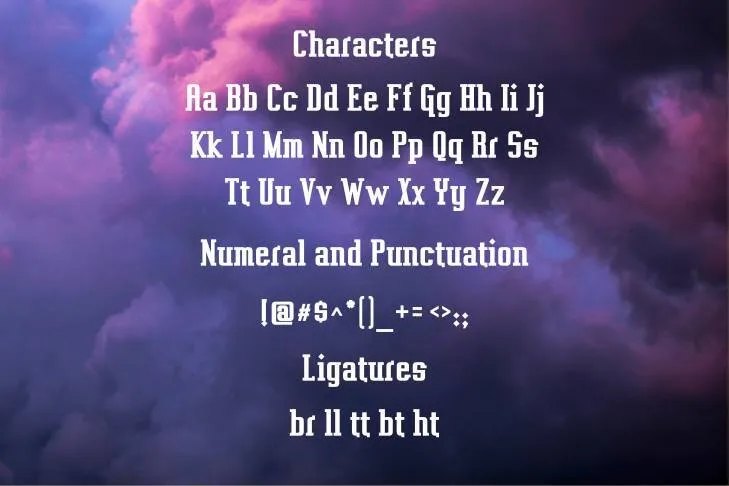
Vahika Font is a stunning serif font with a unique look and decorative embellishments. It frequently appears in a range of settings, such as advertisements, book covers, posters, and websites. It’s crucial to take into account the text size you’re working with when using this stunning typeface in a document or design project.
The typeface works well for larger texts with more space between words, like headings or display text. To increase readability and legibility when using it for longer passages of text, think about matching it with a more straightforward typeface.
This stylish font works well with bold, italic, and underline styles to highlight particular words or phrases when it comes to editing and design. Overall, it gives an awe-inspiring look to your projects and pleases the users as well.
Using Vahika Font
To produce a coherent and visually acceptable design, it is frequently utilized in combination with other decorative components, such as elegant images, lines, or ornaments.
Vahika is a well-liked font for use in advertising campaigns, especially for goods or services that appeal to sophisticated or high-end consumers because of its elegant and artistic appearance. This typeface style gets a new shape after making a pair with silicia script font.
Additionally, because of the elaborate and decorative design of this exceptional ⁷typeface, many designers decide to use it to design posters and flyers as well as book covers. Along with this, it can be applied to web design, especially for headings and other text that needs to stand out and have an impact. When used to generate headings and titles for a project, it works best with larger font sizes and signifies out.
Style | Serif |
What type of font is Vahika?
Vahika is a stunning Devanagari script font with a calligraphic look and decorative embellishments.
Where can I use the Vahika font?
Vahika is a well-liked font for use in advertising campaigns, especially for goods or services that appeal to sophisticated or high-end consumers because of its elegant and artistic appearance.